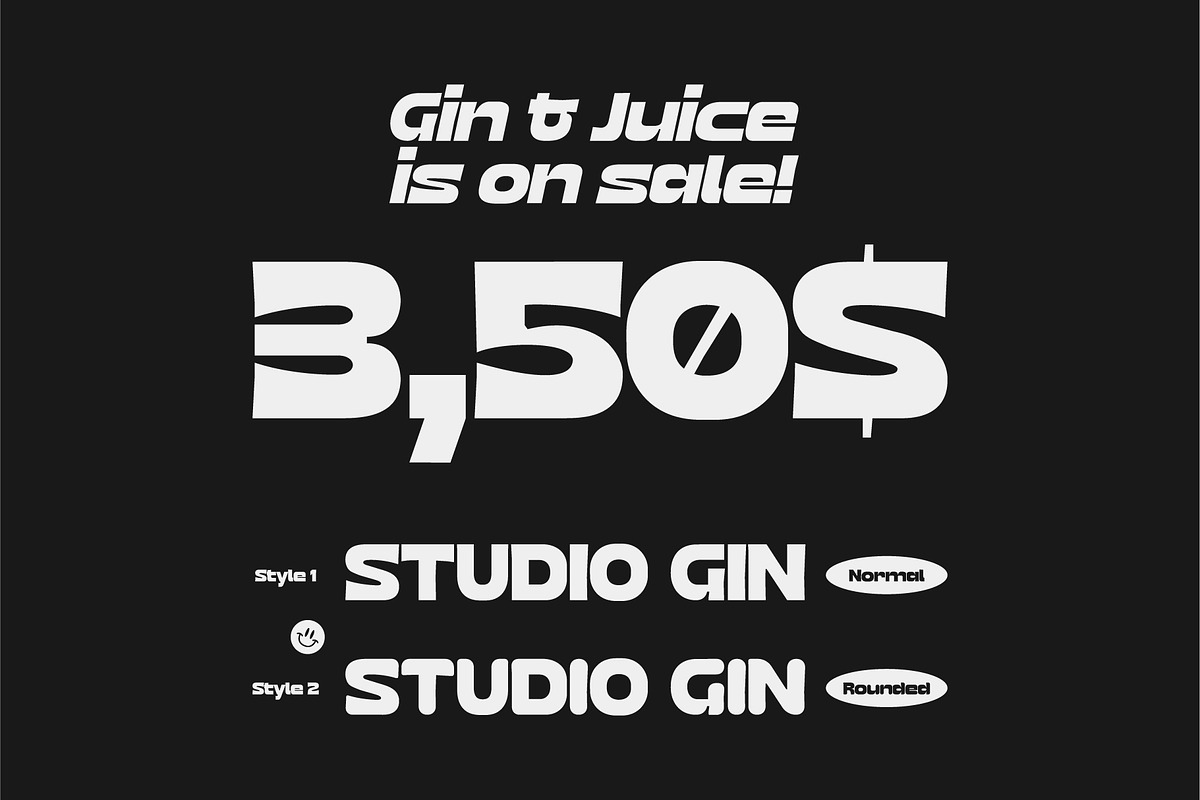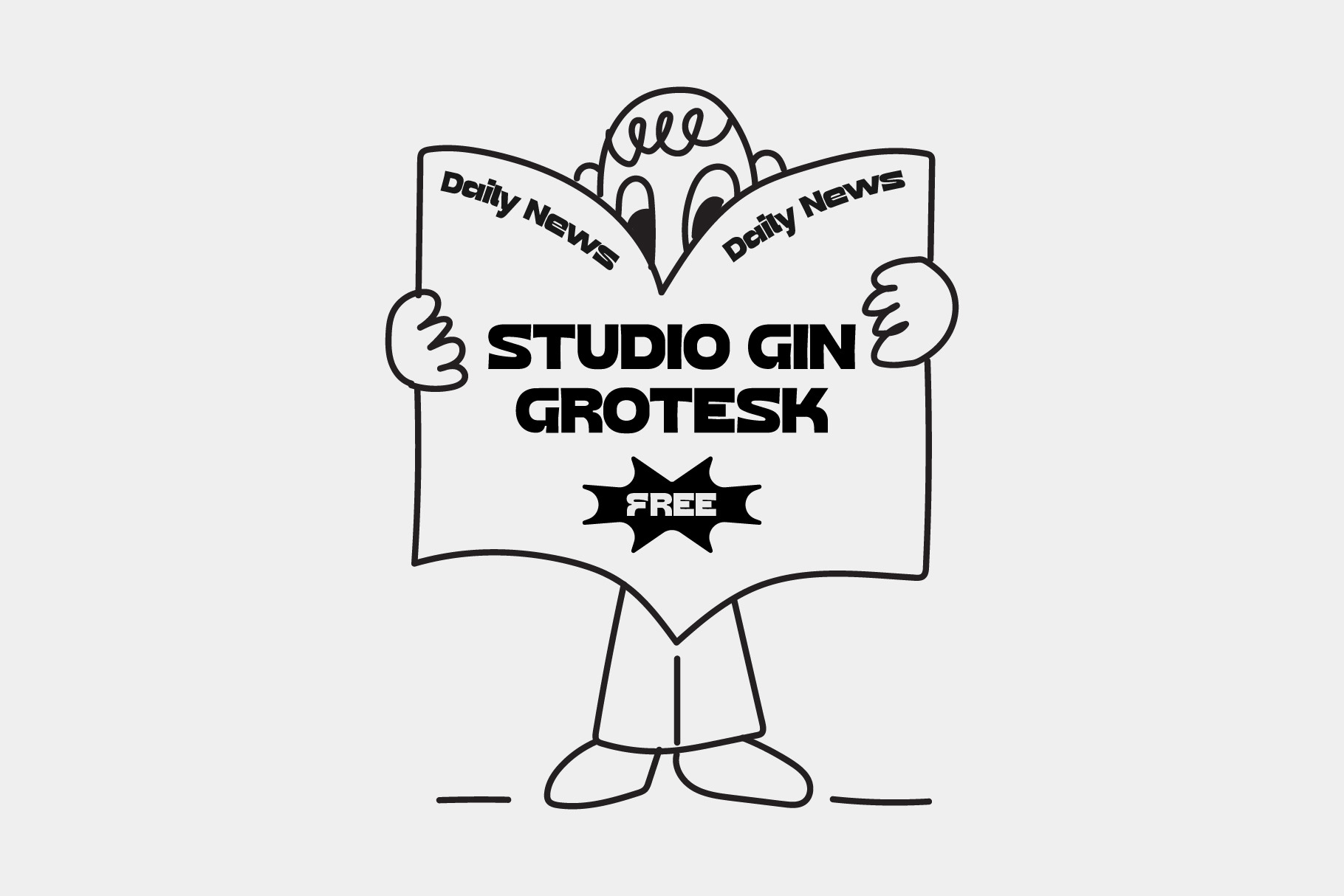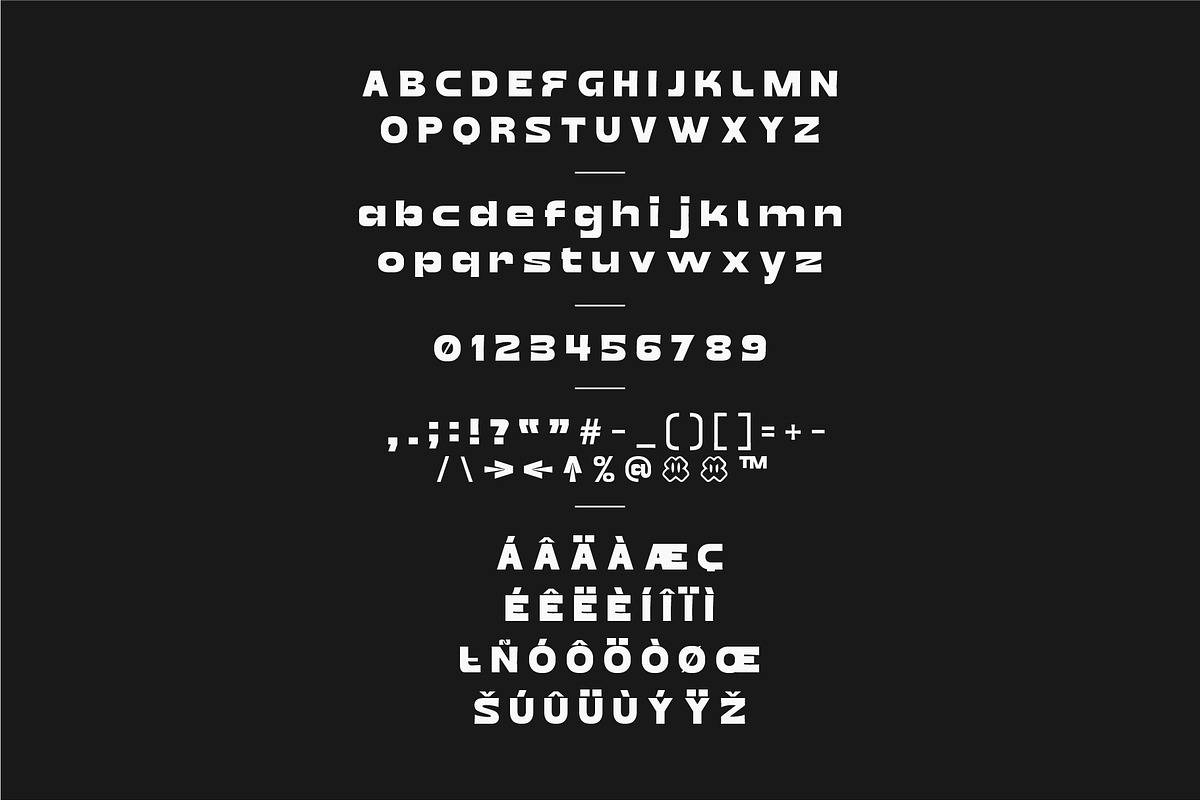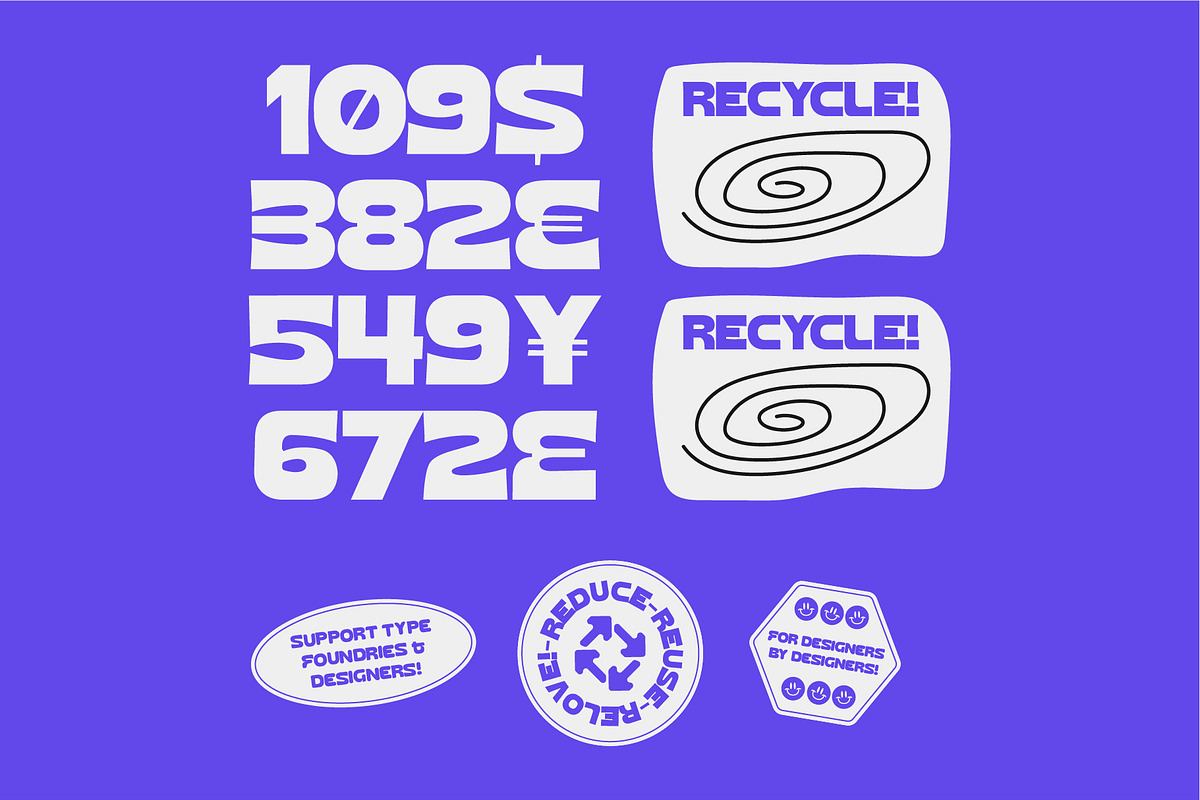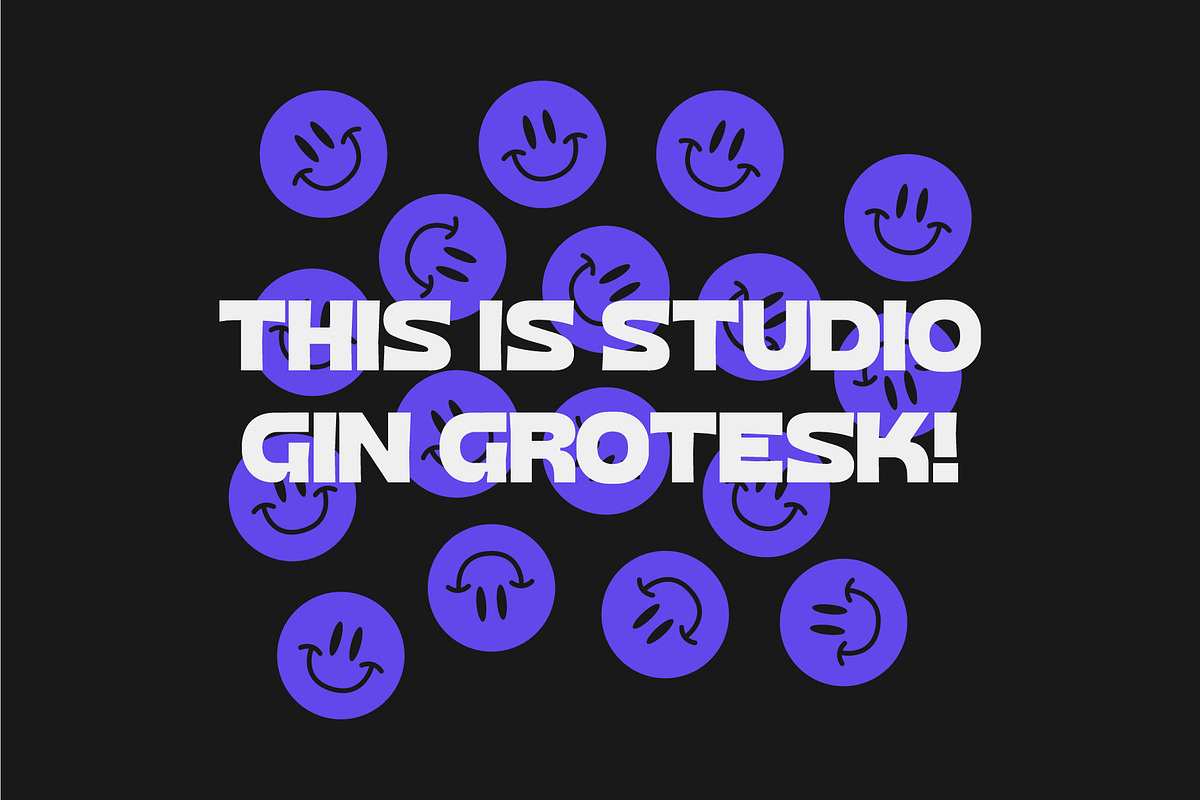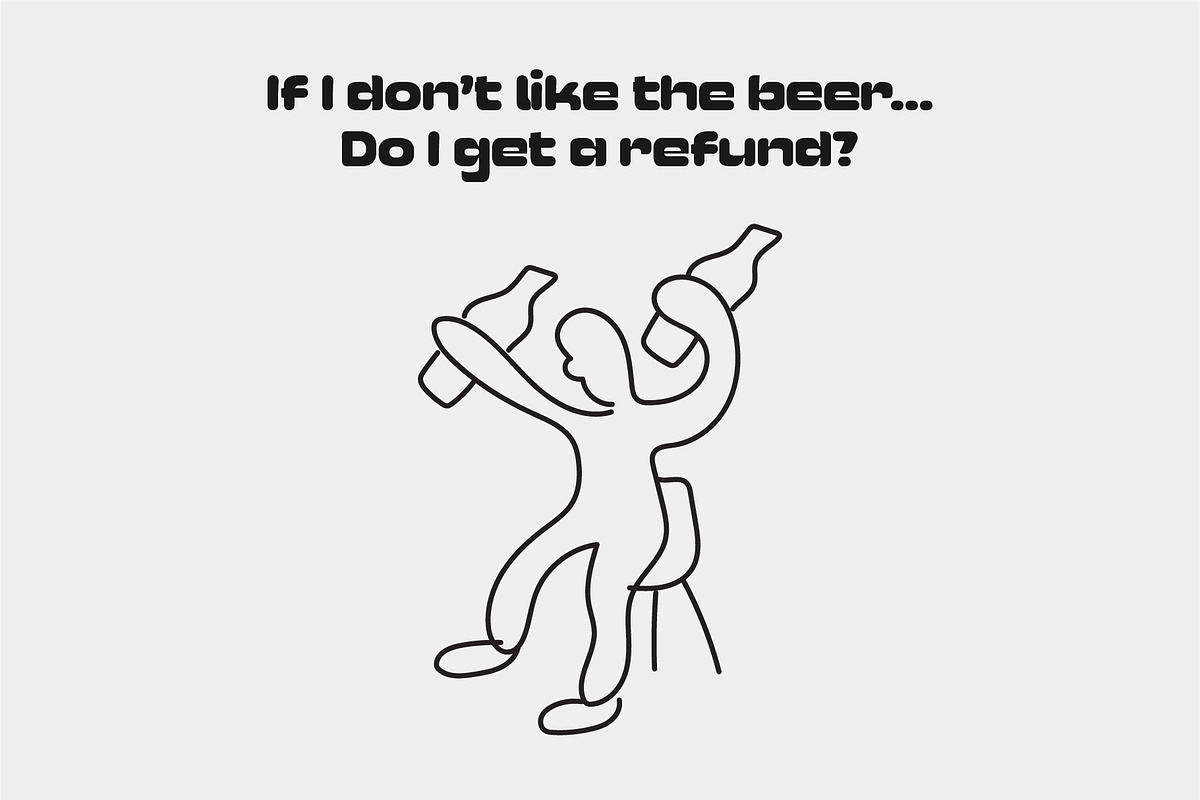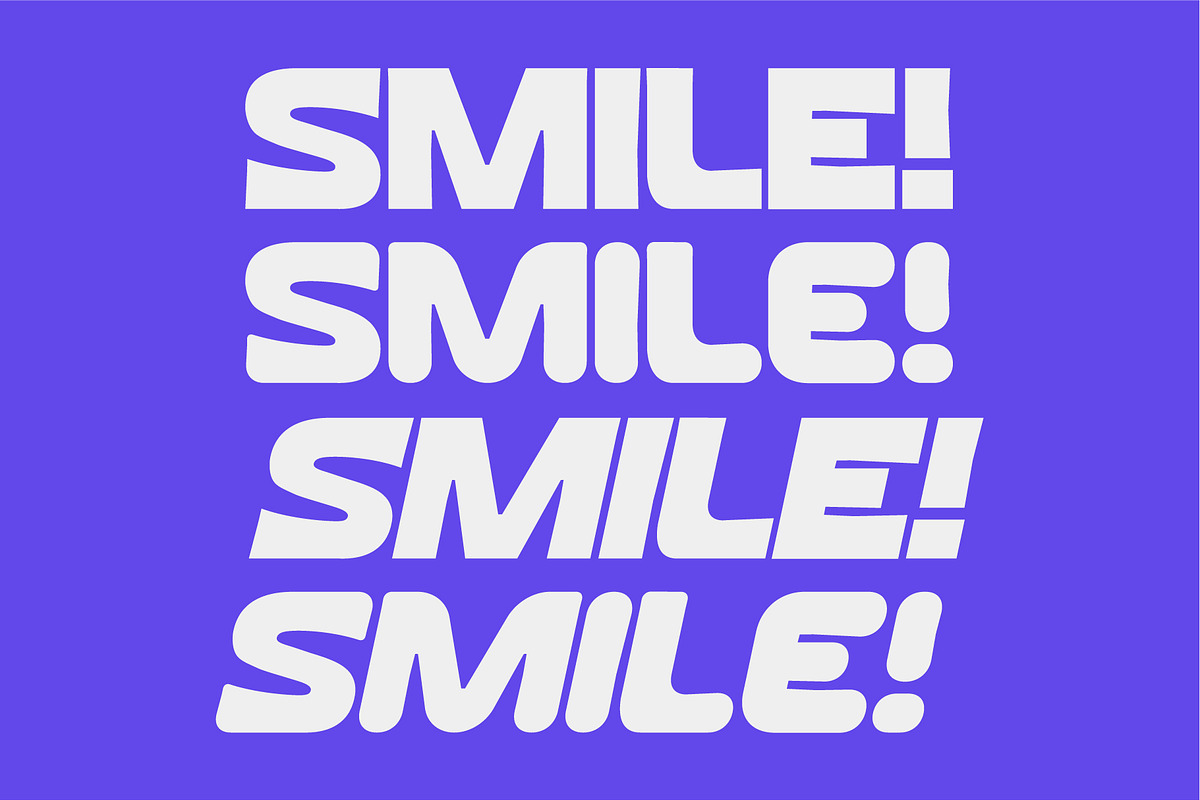
GIN - Grotesk Typeface
Gin Grotesk is a typeface created in collaboration with Studio Gin! It is a quirky, fluid & experimental type piece. It should portray the studios description.
"The studio should portray seriousness in work but not to serious, consider this businessmen doing wheelies while drinking Gin & Juice serious. They also got quite some fancy ties."